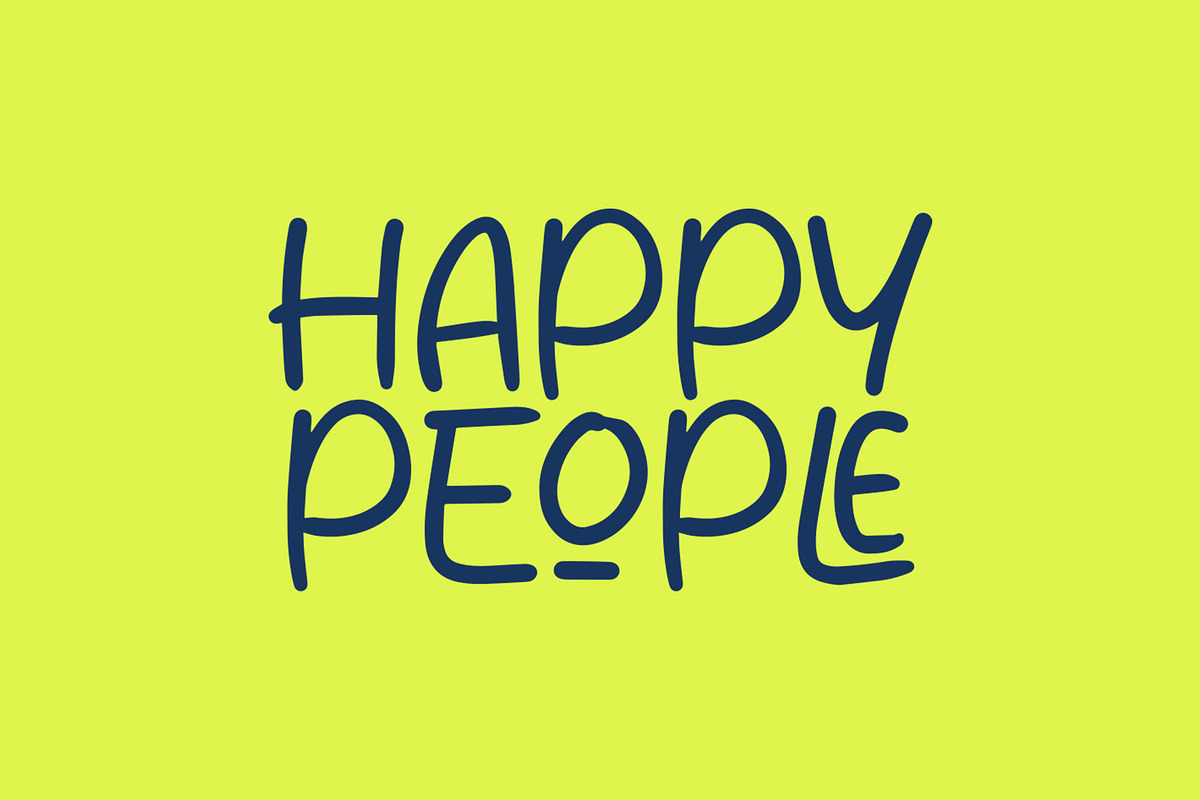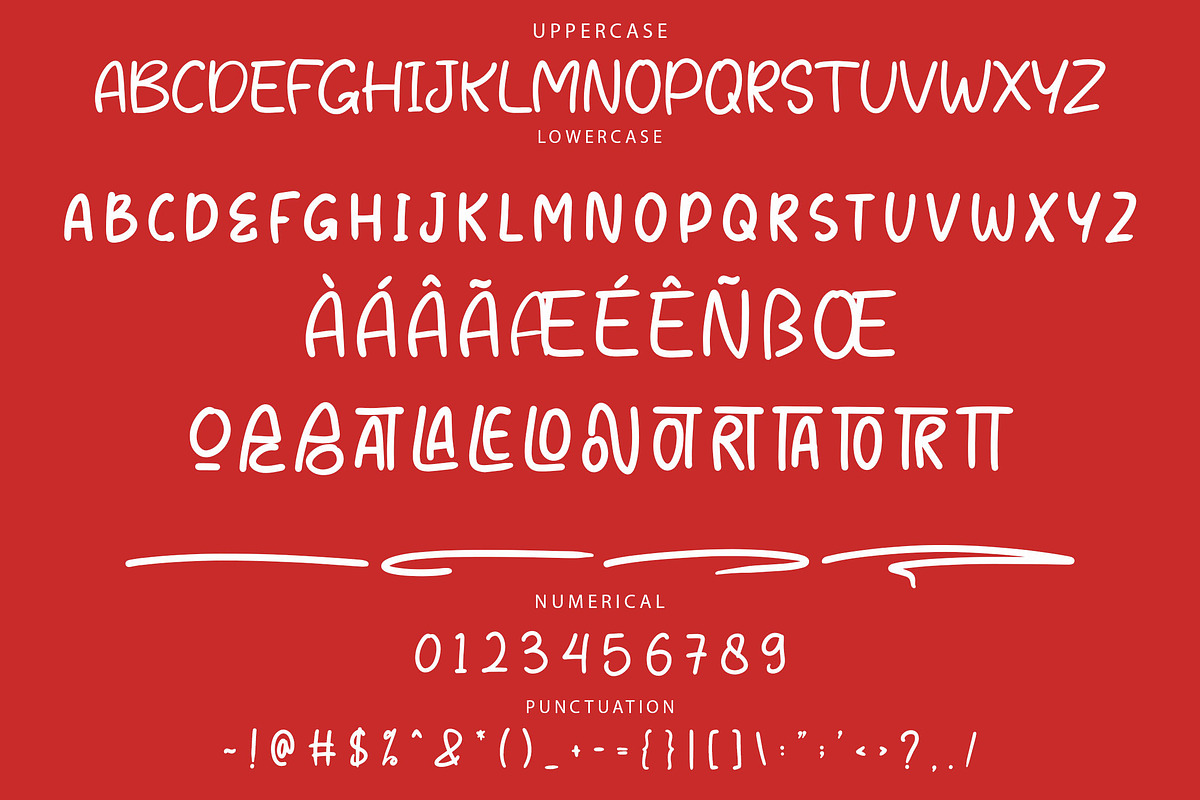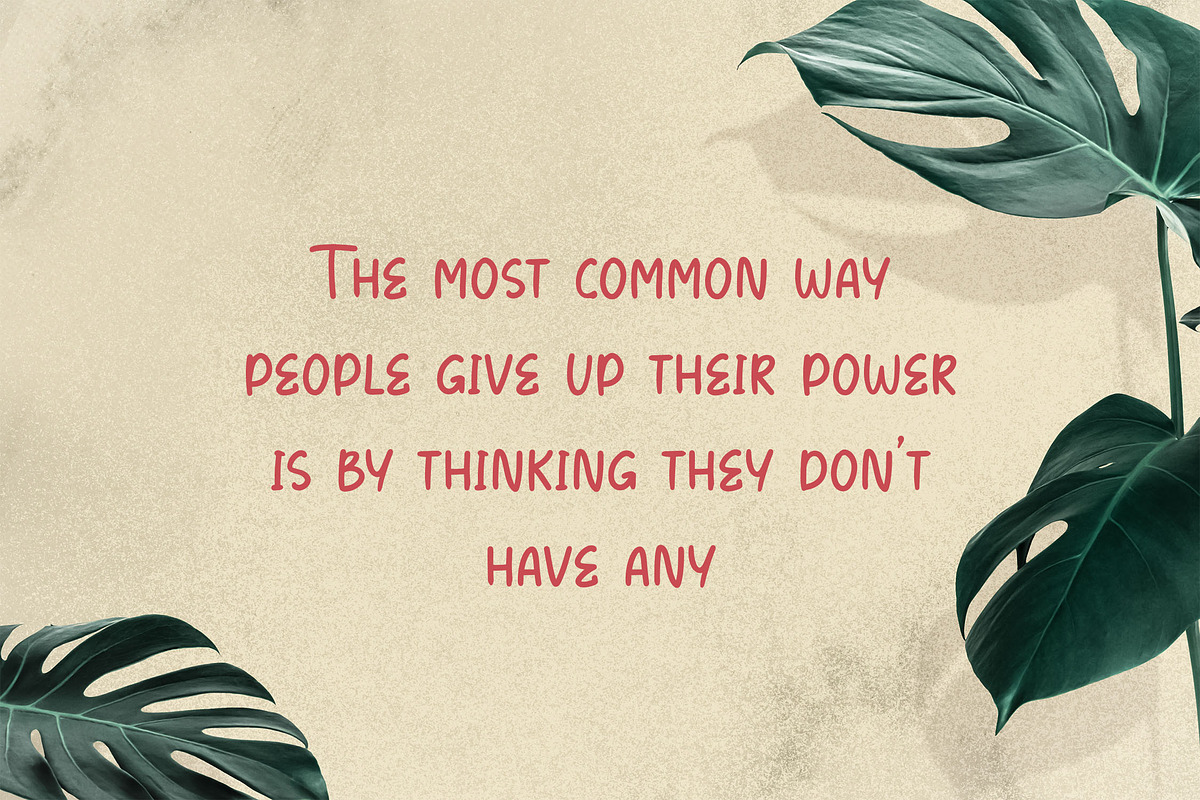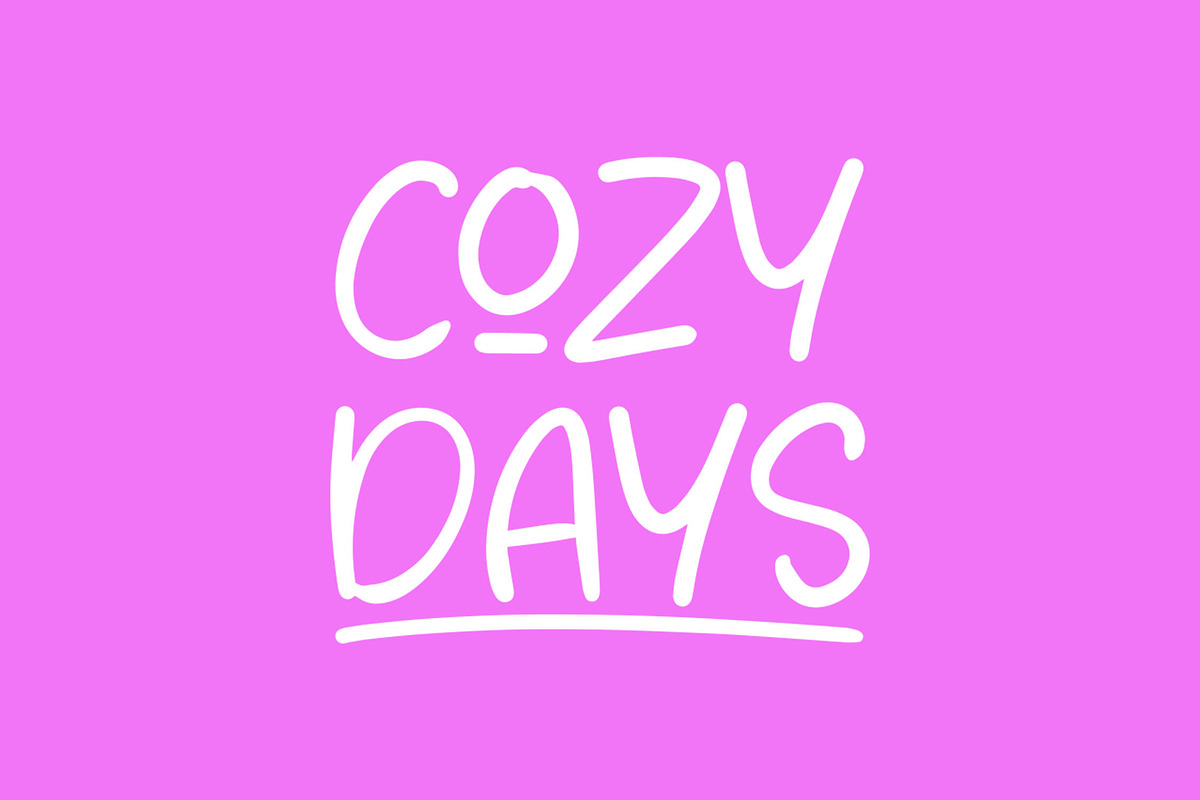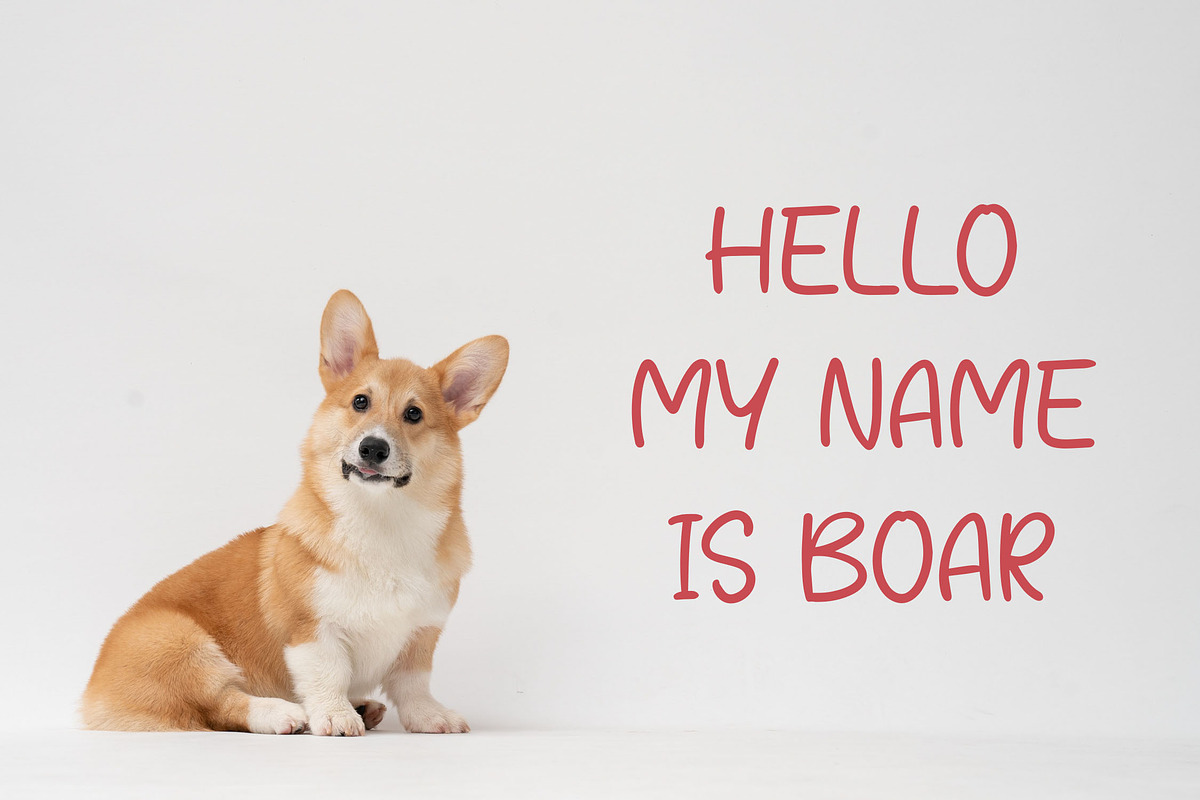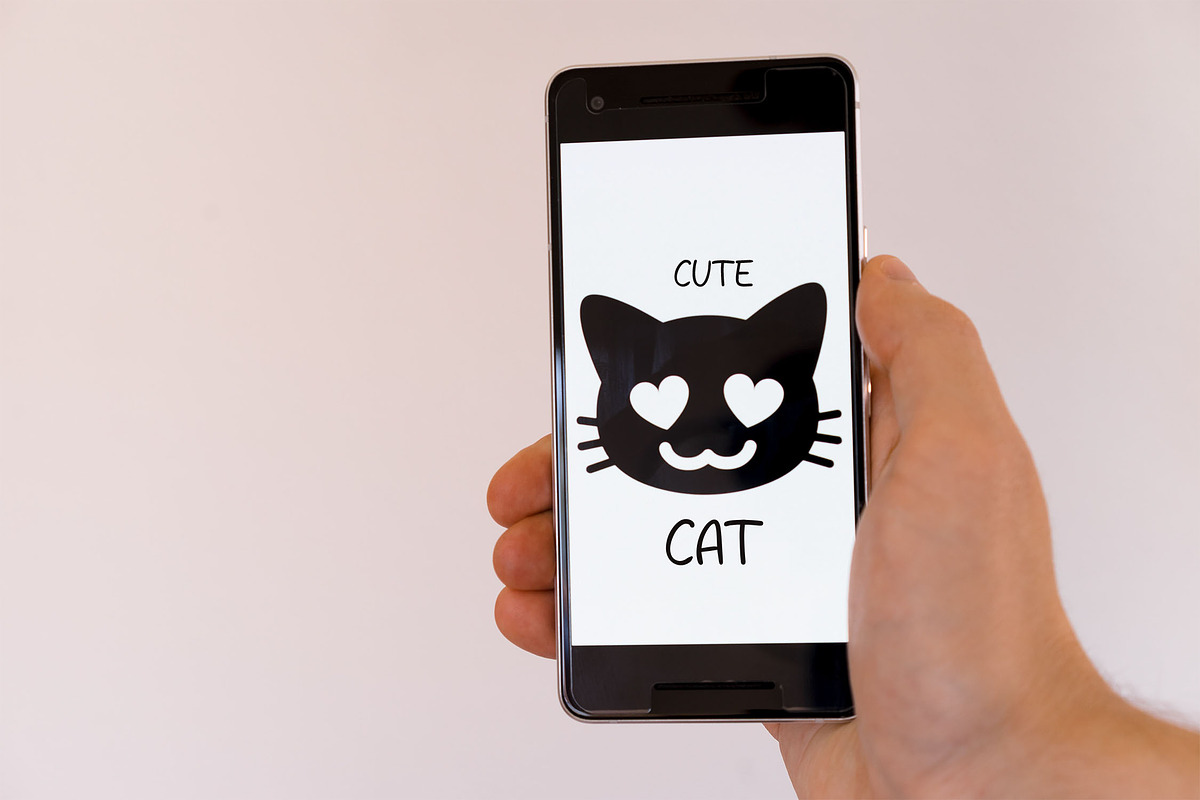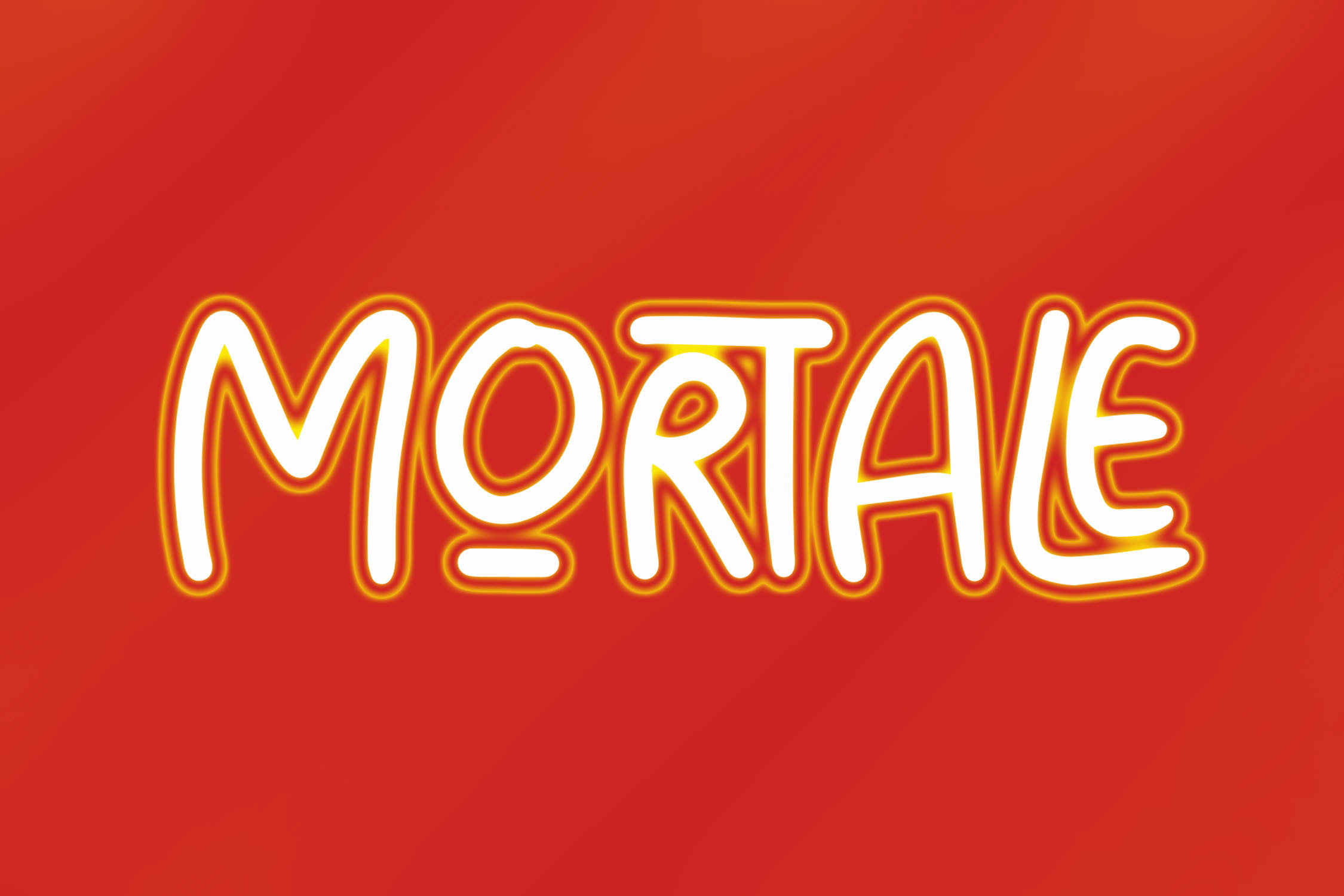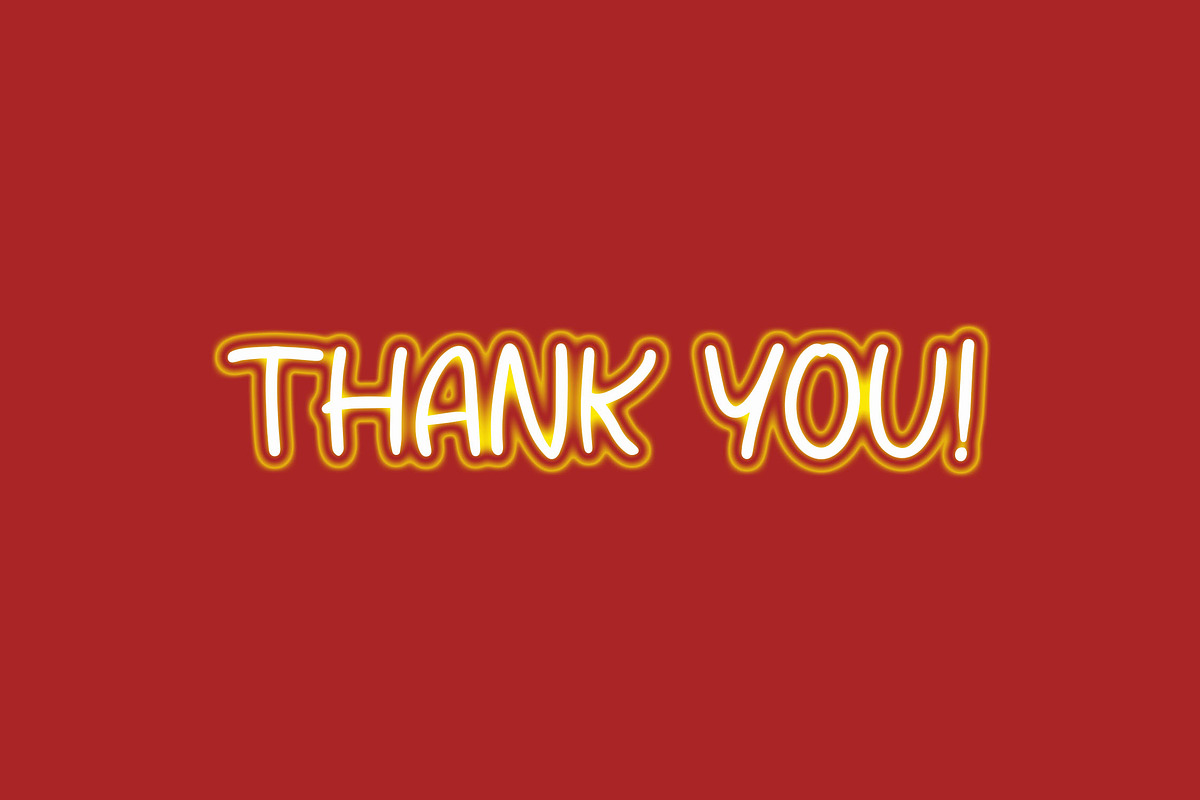
MORTALE Playful Handwriting Font
MORTALE - Playful Handwriting Font
Introducing MORTALE, a lively handwriting font that brings a playful and creative touch to any design. Crafted with unique character shapes, this font is perfect for adding a fun, dynamic flair to your projects, whether for branding, invitations, or product designs. With its charming style, MORTALE enhances the visual appeal of your work, making it more engaging and attractive.
- Includes ligatures, stylistic alternates, and swashes
- Multilingual support for diverse applications
Enhance your creative projects with the fun and playful MORTALE handwriting font!